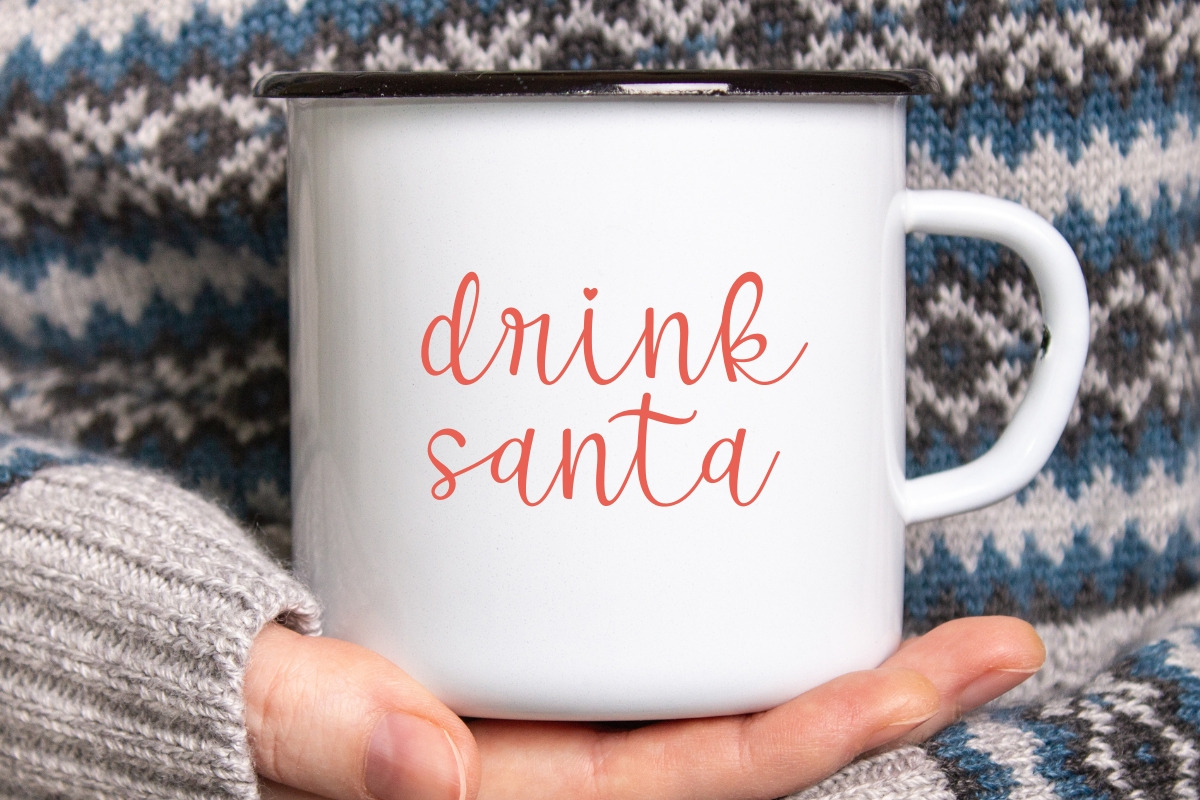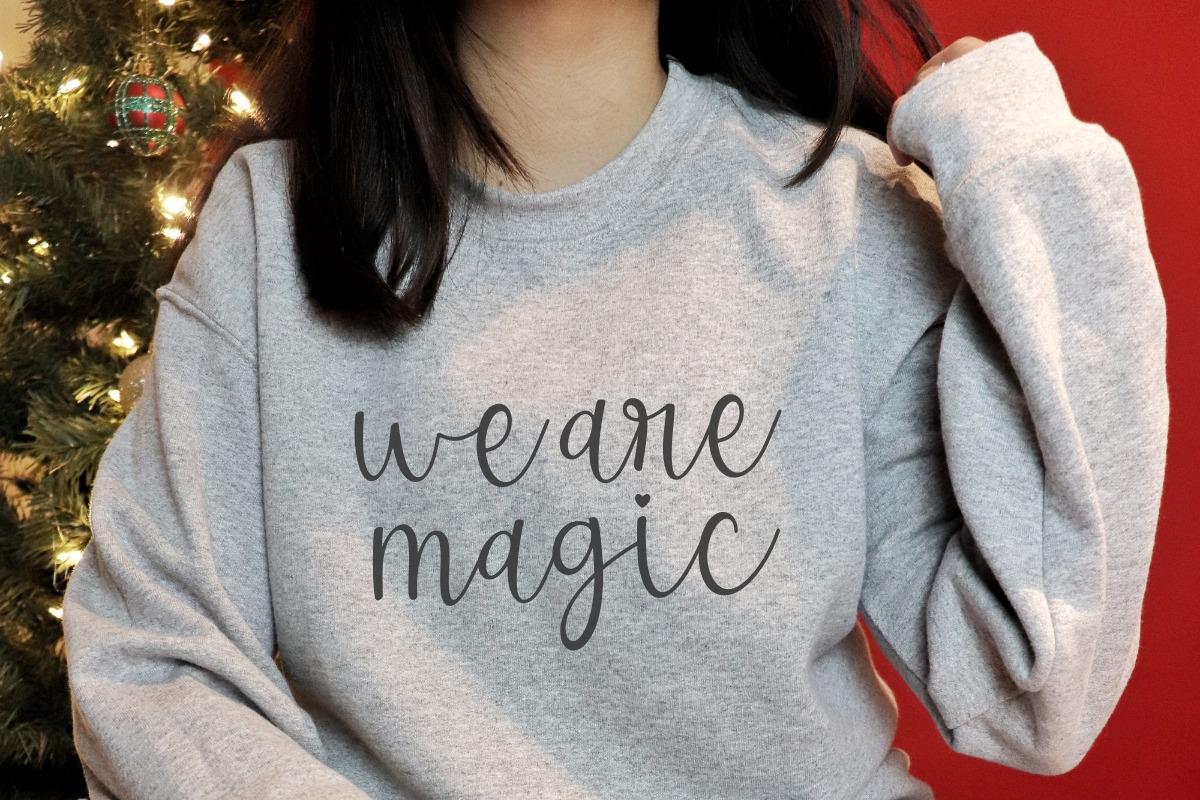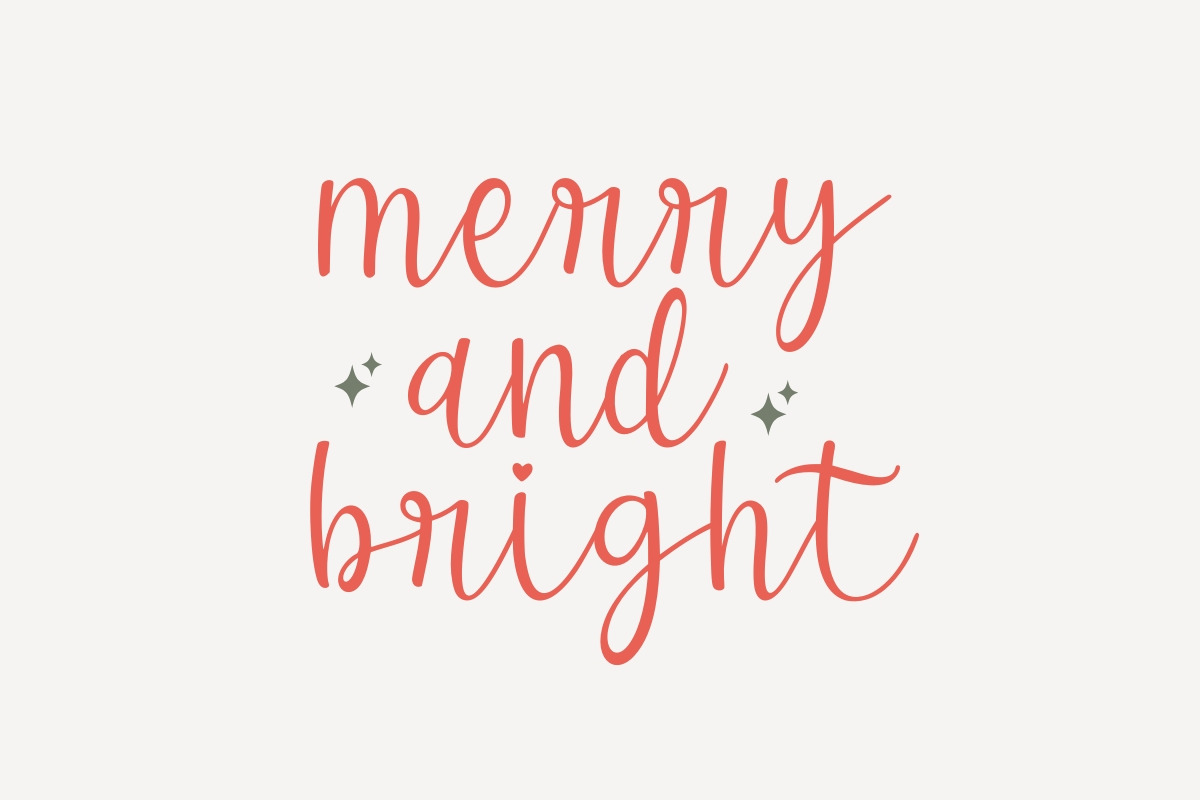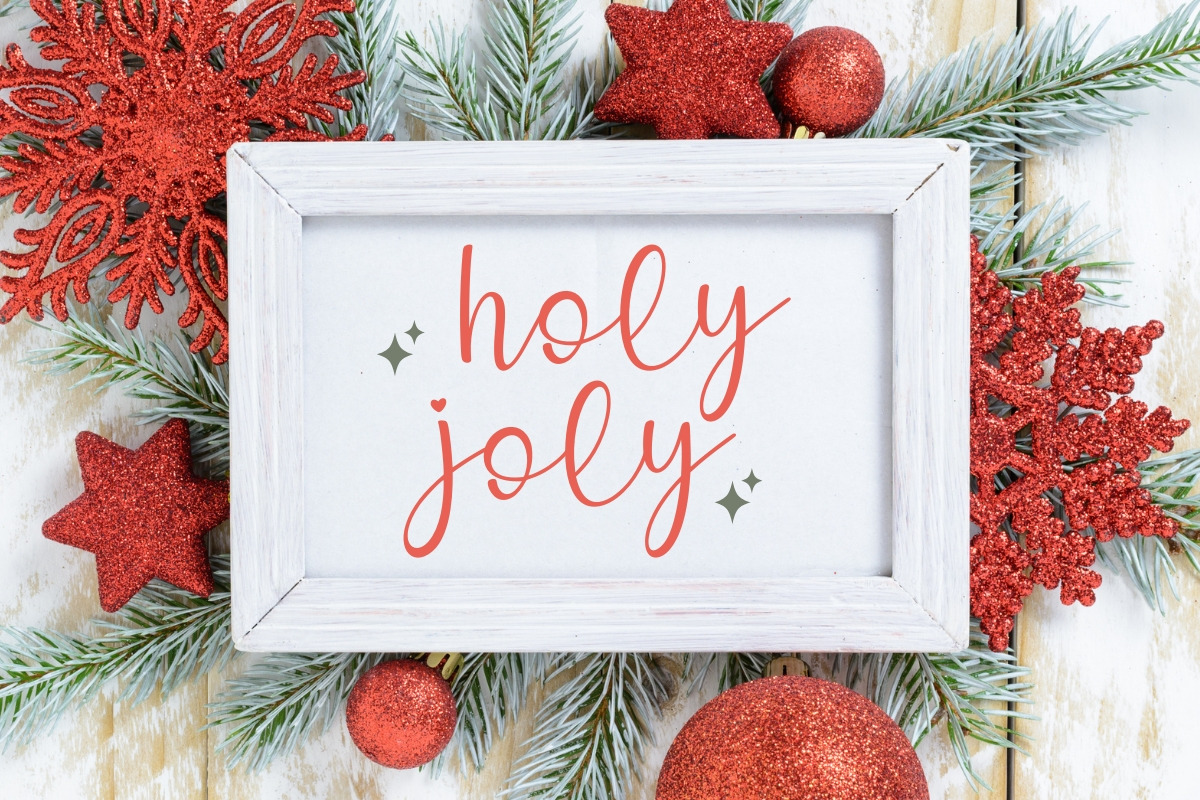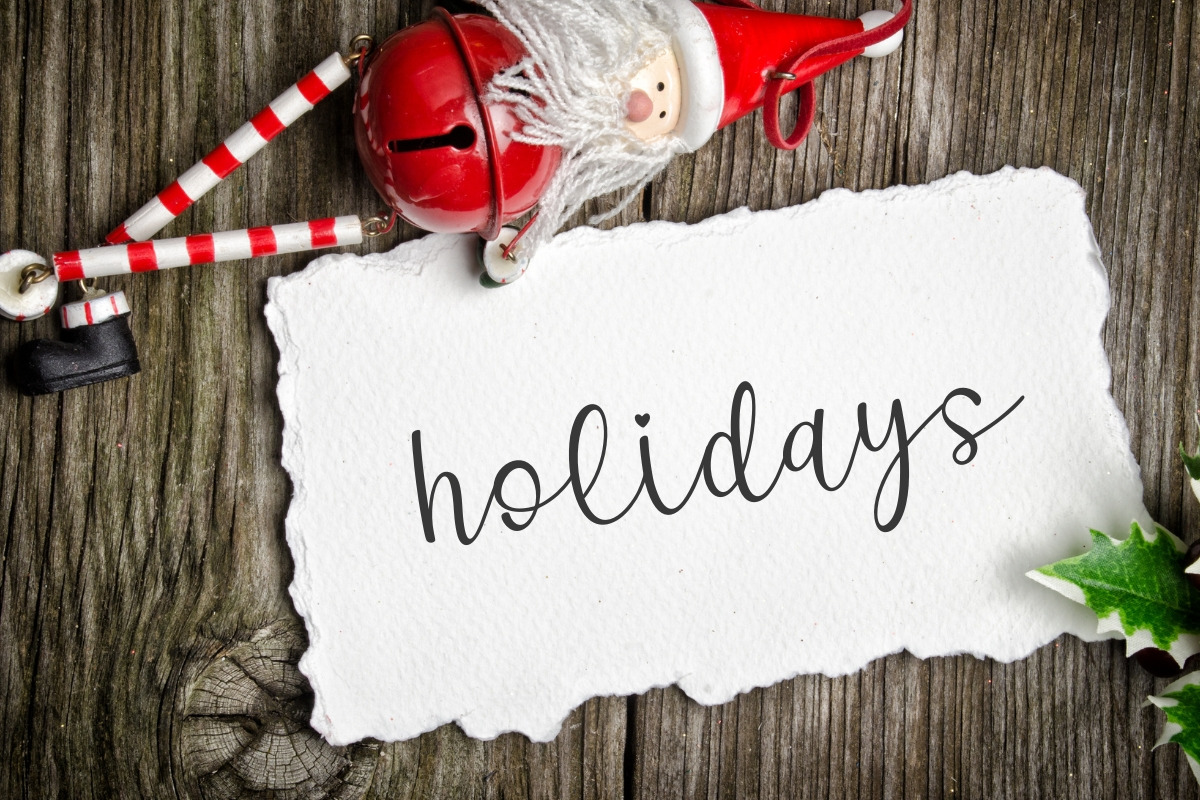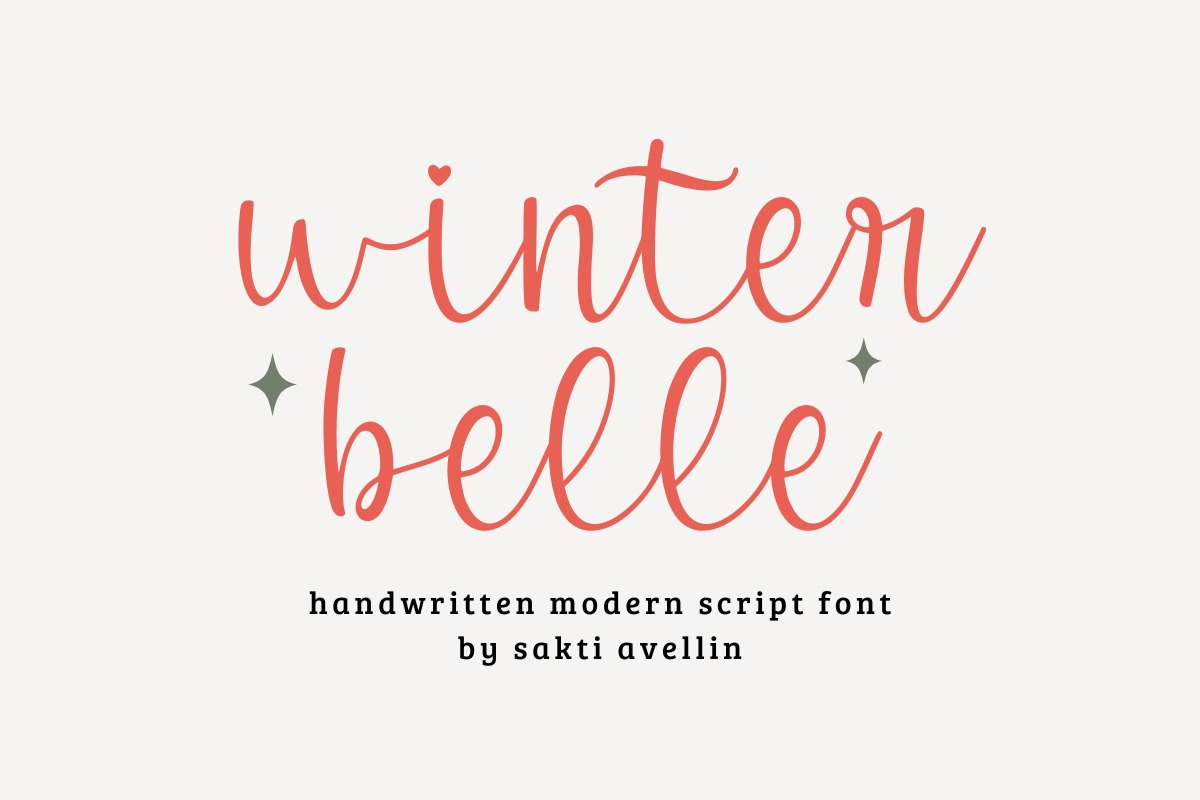
Winter Belle - Modern Script Font
Winter Belle is an elegant, flowing handwritten modern script font that captures the delicate beauty and cozy feel of the winter season. This charming calligraphy font is perfect for creating sophisticated Christmas cards, festive holiday invitations, elegant wedding stationery, cozy winter branding, and beautiful social media posts. Its stylish connections and smooth lines make it highly readable and instantly appealing to a feminine, luxurious audience. Ideal for crafting projects, product packaging, and any design that needs a touch of graceful, seasonal font elegance. Bring beautiful winter memories to life with this delightful script!